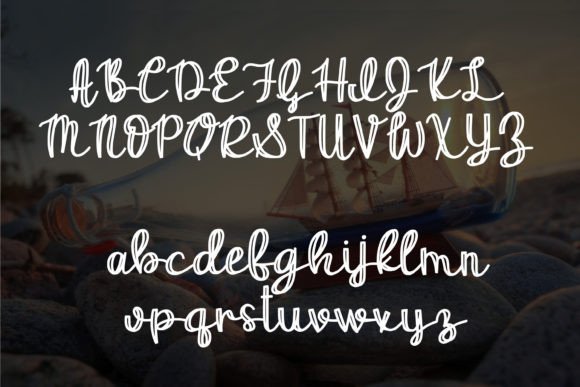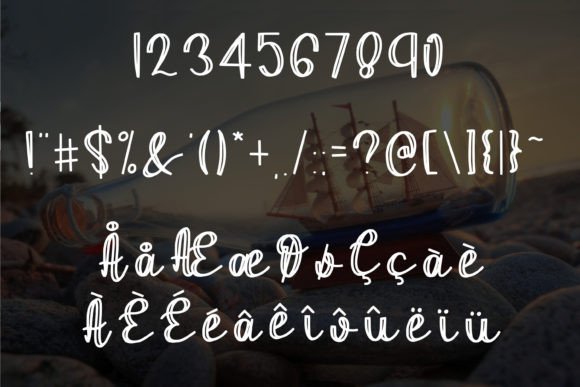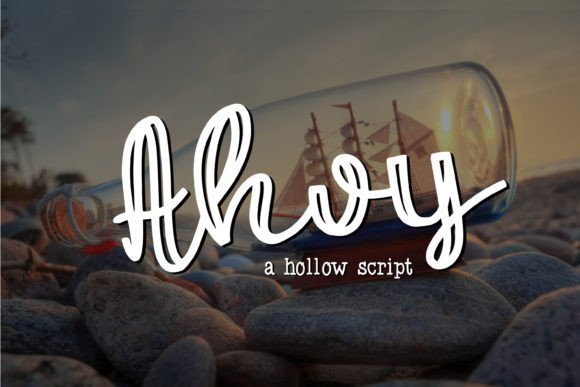
Ahoy Font: Add a Whimsical Touch to Your Designs
Are you looking for a font that can bring a playful and adventurous vibe to your designs? Look no further than the Ahoy Font! With its unique, flowing strokes, this font is perfect for adding a whimsical touch to any project. Whether you’re creating seaside invitations, crafting a coastal-themed design, or just looking to add a bit of excitement, Ahoy is the perfect choice.
The Characteristics of Ahoy Font
The Ahoy Font is a script font that features playful, cursive strokes that evoke the feeling of movement and freedom. Its flowing lines and curves give it a sense of whimsy and adventure, making it perfect for designs that require a bit of personality. The font is highly legible, even at smaller sizes, making it versatile for use in a variety of projects.
Uses for Ahoy Font
The Ahoy Font is perfect for a wide range of design projects, including:
• Seaside invitations and event branding
• Coastal-themed designs, such as beach signs and nautical logos
• Adventure and travel-related marketing materials
• Whimsical and playful packaging designs
• Handmade and craft projects, such as sewing and embroidery patterns
Why Choose Ahoy Font?
So why choose the Ahoy Font for your next project? Here are just a few reasons:
• Unique and eye-catching: The Ahoy Font is a one-of-a-kind font that is sure to grab attention and add a touch of personality to your designs.
• Highly versatile: The font is suitable for use in a wide range of projects, from invitations and signs to logos and packaging.
• Easy to read: Despite its playful and cursive nature, the Ahoy Font is highly legible, even at smaller sizes.
• Perfect for crafty projects: The Ahoy Font is a great choice for handmade and craft projects, such as sewing and embroidery patterns.
Tips for Using Ahoy Font
Here are a few tips for getting the most out of the Ahoy Font:
• Use it with a playful color scheme: The Ahoy Font is perfect for use with bright, playful colors that evoke the feeling of adventure and whimsy.
• Experiment with different sizes: The Ahoy Font looks great at a variety of sizes, from large and bold to small and delicate.
• Pair it with other fonts: The Ahoy Font pairs well with a variety of other fonts, including sans-serif fonts and serif fonts.
In conclusion, the Ahoy Font is a unique and versatile font that is perfect for adding a whimsical touch to any project. With its playful, flowing strokes and highly legible design, it’s the perfect choice for designers and crafters who want to add a bit of adventure and personality to their work. Whether you’re creating seaside invitations, crafting a coastal-themed design, or just looking to add a bit of excitement, the Ahoy Font is sure to bring a splash of fun to your project.